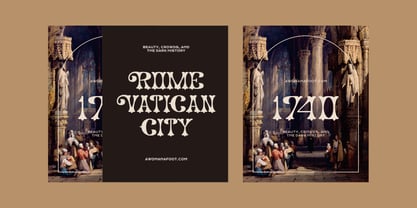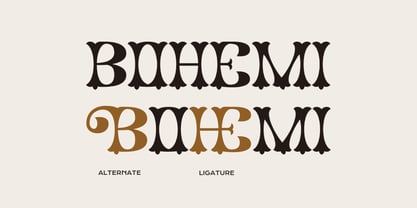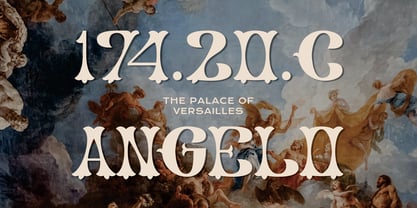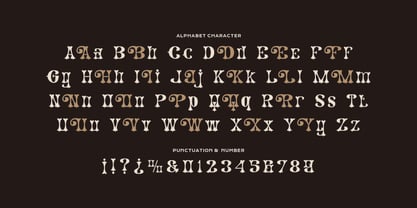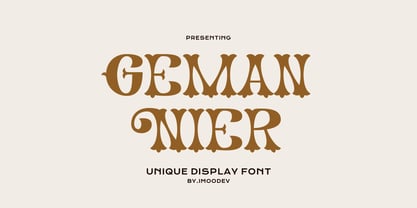
Geman Nier
The Geman Nier Font Family was designed by Aulia Savira Putri and published by Imoodev. Geman Nier contains 1 styles. More about this family
Geman Nier display font has major retro-fairytale vibes—it’s bold, curvy, and extra ornamental. The letterforms have these swoopy, almost floral serifs that give it a whimsical, old-timey feel, yet the overall weight and shape keep it on the modern side of quirky.
It’s reminiscent of classic Victorian, but with a contemporary spin that makes it super eye-catching, the vibe brings to font is like a perfect mash-up of Baroque opulence and modern design sensibilities.
This font was basically born to be in big, impressive headlines (posters, logos, product packaging, product mockup, labels, editorials, wedding designs, art deco, album covers, you name it).